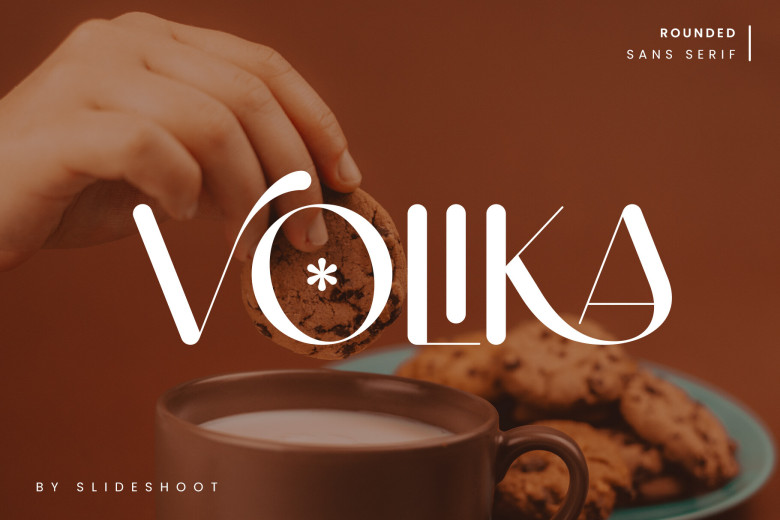
Volika Font
Volika is a font that is equally harmony, grace, sophistication, and style which belongs to the sans serif type of fonts. This is a beautiful character you have. It complements card designs, logos of companies, names of films, names of movies, cards of companies, titles of books, names of brands, and many other designs.
Volika Sans Serif is a delicate, clean and simple sans serif font that gives a sense of professionalism and class. This font has stylish alternations and ligatures; thus, it can complement any project.
Volika Sans Serif Font